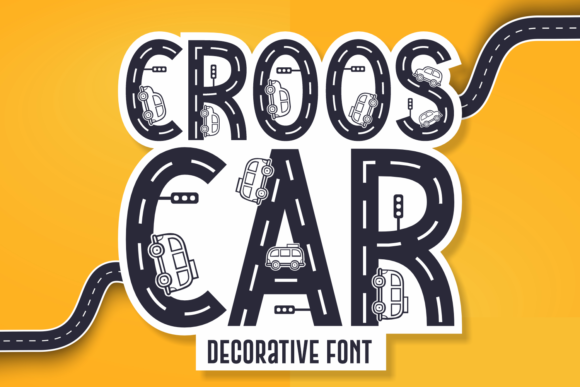
Looking for a unique decorative font that will make your designs stand out? Look no further than Croos Car Font, created by Creative Fabrica Fonts! This font is perfect for all automobile enthusiasts and anyone looking to add a creative touch to their designs.
What sets Croos Car Font apart from other decorative fonts is the inclusion of moving cars within each character set. This adds an exciting and dynamic element to any design. Whether you're creating posters, children-themed designs, car-related designs, quotes, books, movies, birthday cards, wall art, frames, or art prints, Croos Car Font is the perfect choice.
One of the most appealing aspects of Croos Car Font is the use of bright colors. These colors add an eye-catching and playful element to any design, making it perfect for designs aimed at children or anyone looking for a fun and vibrant aesthetic.
But Croos Car Font isn't just for fun designs. It's also a great choice for anyone looking to add a unique touch to more professional projects. The inclusion of moving cars within each character set adds a touch of creativity and innovation that is sure to impress clients and colleagues alike.